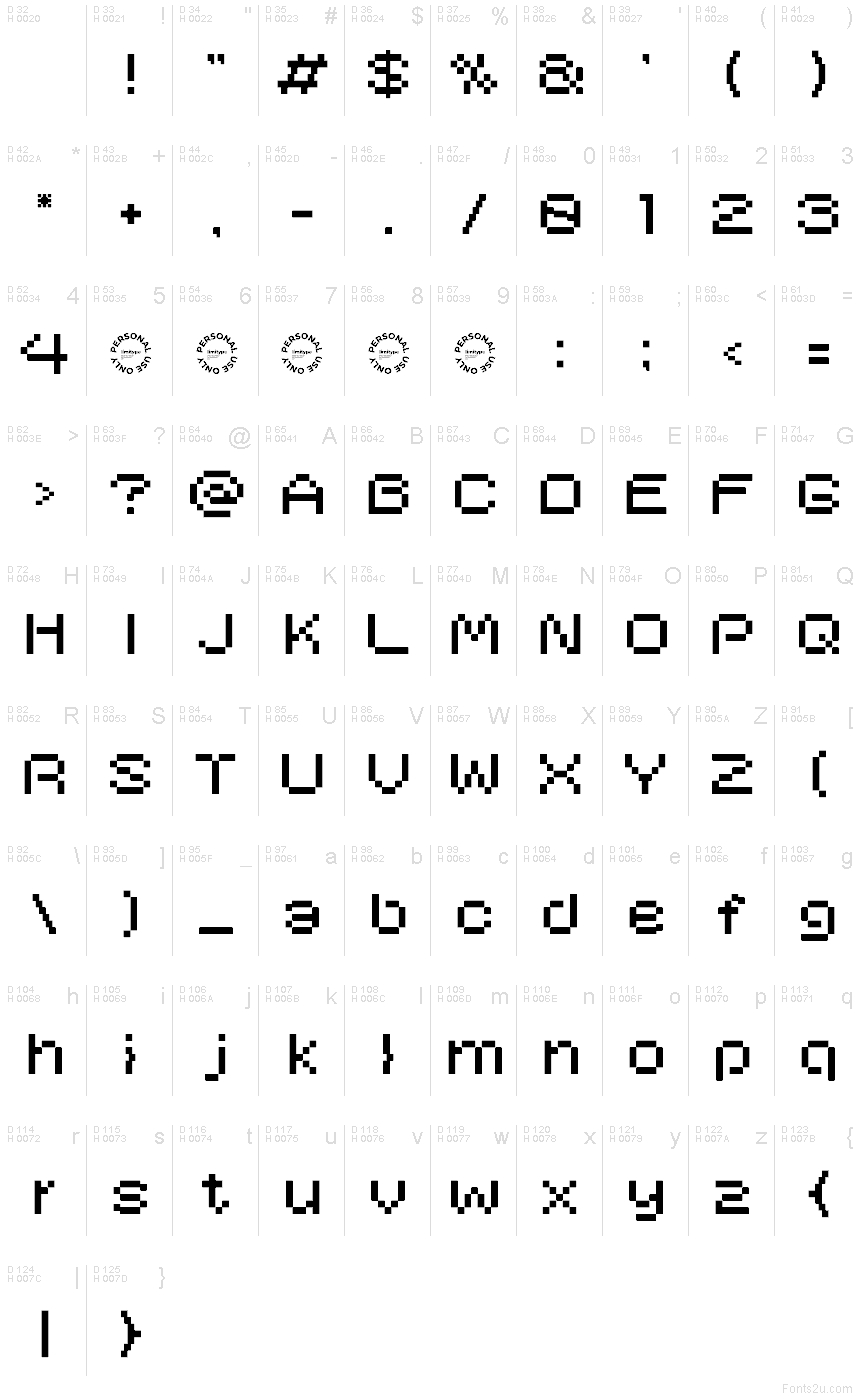
Kospix Demo
Kospix font by Limitype is a free digital display typeface that snaps every curve into a tight pixel grid. Its bold, blocky letters feel like they’ve been carved from an LED matrix—chunky squares, stepped diagonals, and crisp corners that light up at larger sizes. There’s a playful tension between its rigid grid and the soft rhythm of each word, giving your layouts an unmistakably retro-tech pulse.
Using Kospix, you can instantly push anything toward classic arcade and chiptune culture: game UIs, stream overlays, esports branding, event posters, stickers, and bold social graphics all benefit from its punchy geometry. This free font thrives when set big and bright, especially in white or neon on dark backgrounds. Pair Kospix with a clean geometric sans for body copy to keep the retro energy grounded and readable.